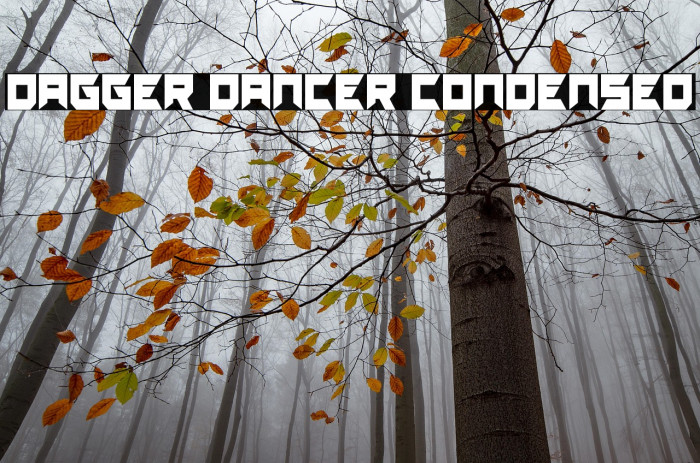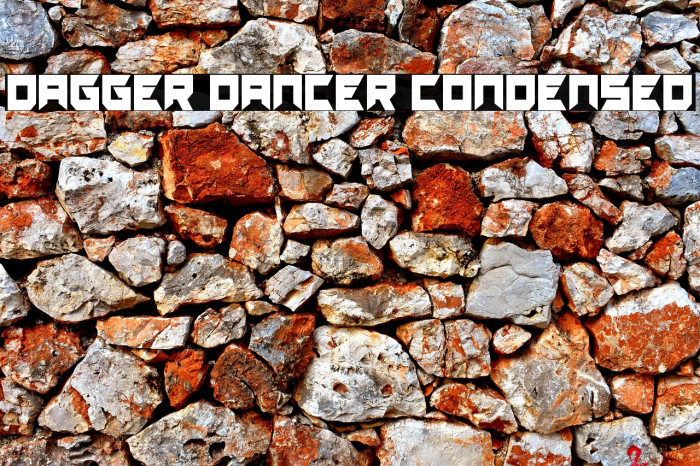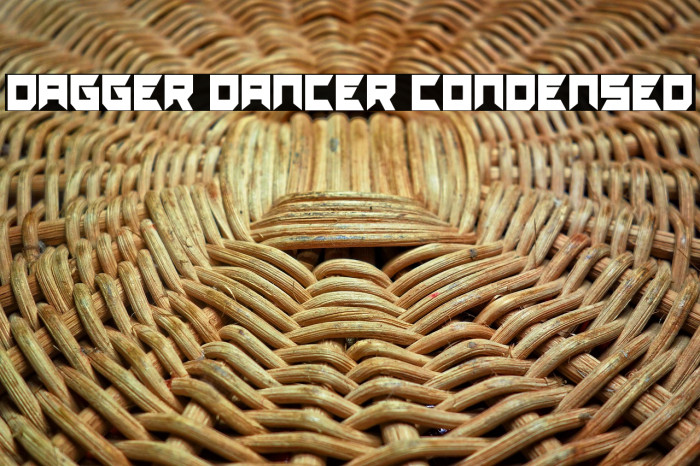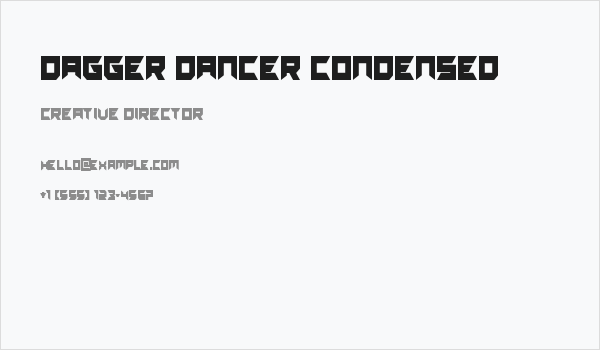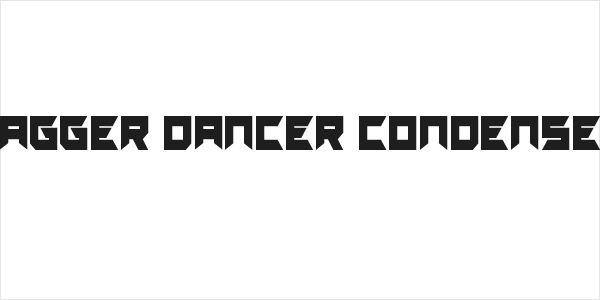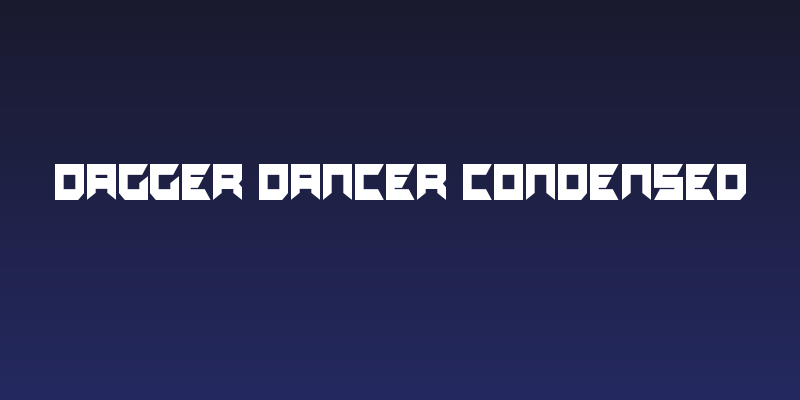
Dagger Dancer Condensed Font
Dagger Dancer Condensed Description
This font features a bold, geometric design with sharp angles and a condensed structure. The characters are crafted with a futuristic aesthetic, emphasizing strong lines and a blocky appearance. Each letter and number is distinct, with a consistent thickness throughout, creating a cohesive and striking visual impact. The angular cuts and edges give it a dynamic and edgy feel, making it suitable for modern and avant-garde projects. The special characters maintain the same bold and angular style, ensuring uniformity across all glyphs.
| Proposed Projects | Ideal for sci-fi themed designs, video game titles, posters, and branding that requires a modern and bold statement. |